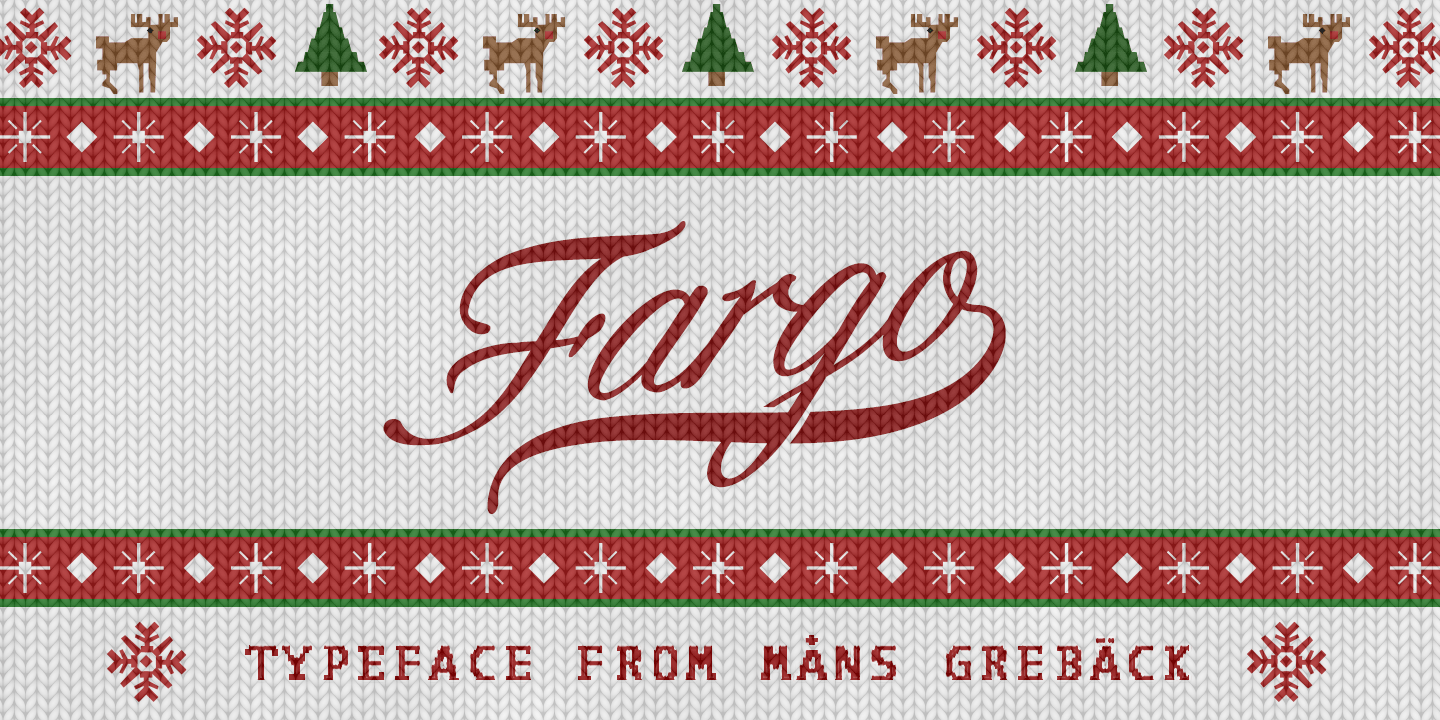
Fargo Font is perfect for Midwestern business branding, agricultural company materials, rural community signage, small-town newspaper layouts, heartland tourism campaigns, farm equipment packaging, regional bank communications, local government documents, grassroots political materials, and authentic American marketing communications.
Fargo Font is exciting because it embodies the honest strength and unpretentious character of America's heartland with its straightforward, dependable letterforms that reflect the values of hard work, community spirit, and genuine authenticity. Its trustworthy character design captures both the resilience of rural communities and the welcoming warmth that defines Midwestern hospitality, making it perfect for brands seeking to establish genuine, down-to-earth connections.
Fargo Font family includes light, regular, medium, bold, and black weights, each with corresponding italic versions. The font family also features agricultural symbols, heartland ornaments, community-inspired ligatures, and regional decorative elements that enhance its authentic American aesthetic and versatility.
This genuinely American typeface represents the perfect fusion of heartland values and functional design. Fargo Font Free Download allows designers to experience its authentic appeal before making a commercial commitment. The font's ability to convey both trustworthiness and regional pride makes it ideal for brands targeting middle America and communities valuing authenticity over pretense.
Whether you're developing agricultural business identities, creating community organization materials, or designing regional marketing campaigns, Fargo Font brings an unmistakable sense of American authenticity and heartland values to every project. Its honest character and regional heritage create powerful connections that resonate with audiences seeking genuine, unpretentious brand experiences.
The font's versatility excels in community and regional environments where trust and local connection are paramount. Its heartland character makes it particularly effective for agricultural businesses, community banks, local governments, and regional brands seeking to establish authentic relationships with Middle American audiences.
For designers working on projects requiring genuine American heartland character and community appeal, Fargo Font provides an exceptional solution. Its authentic presence and comprehensive regional elements offer the tools needed for creating truly trustworthy communications, while its honest strength ensures your designs capture the enduring values that define America's heartland communities.